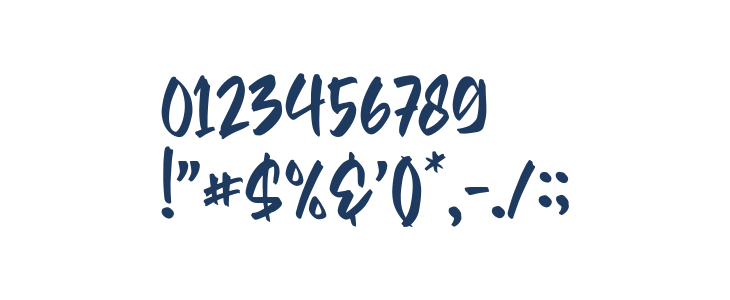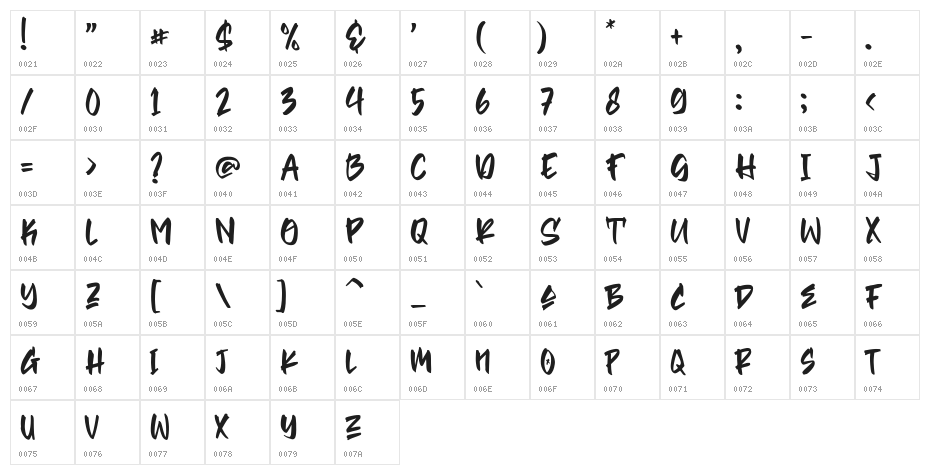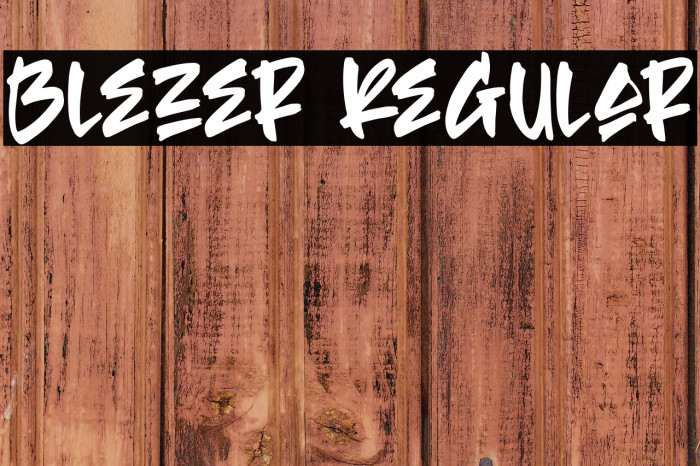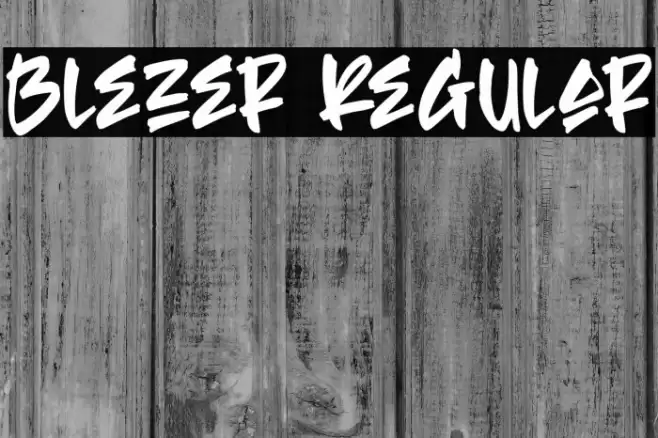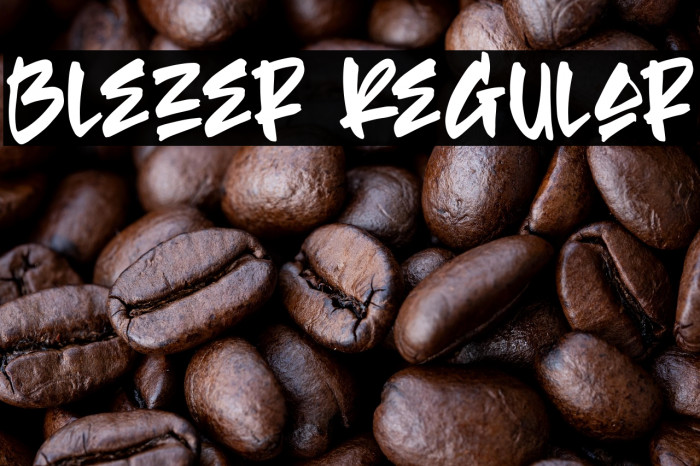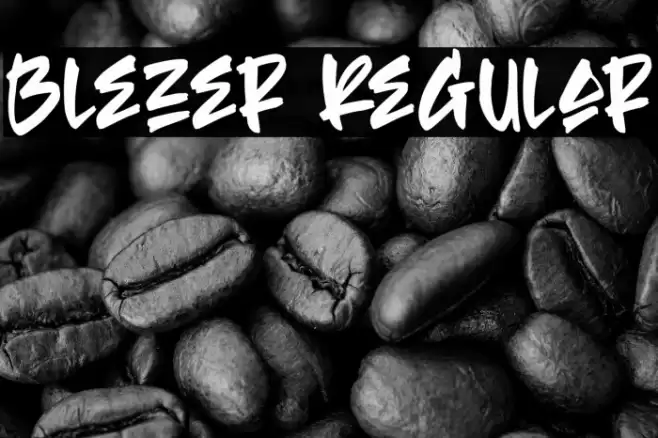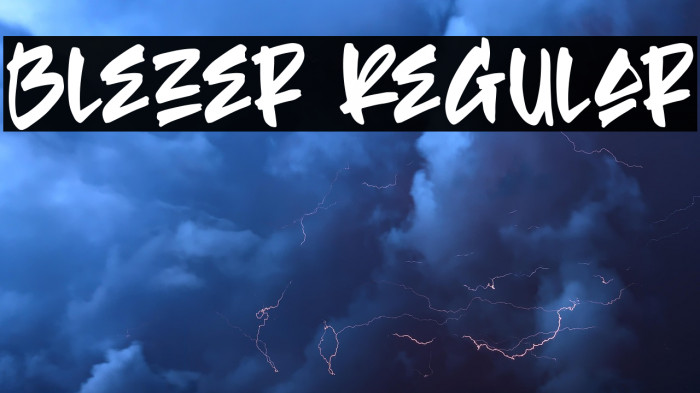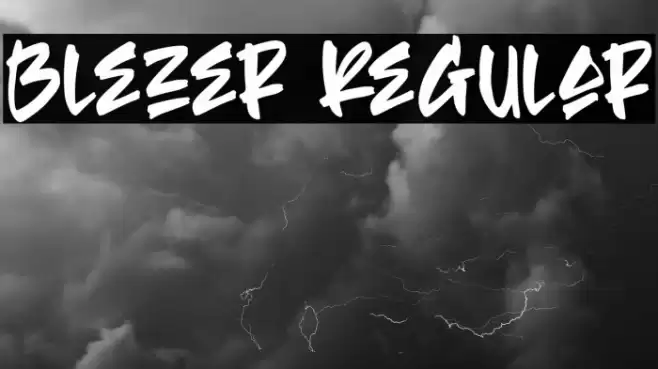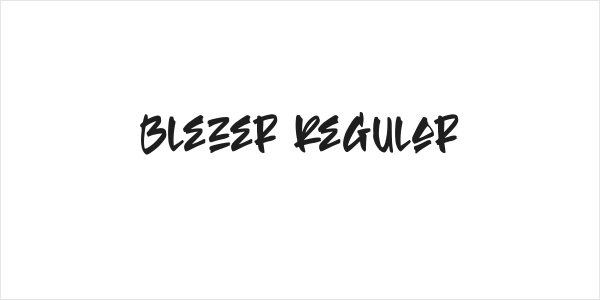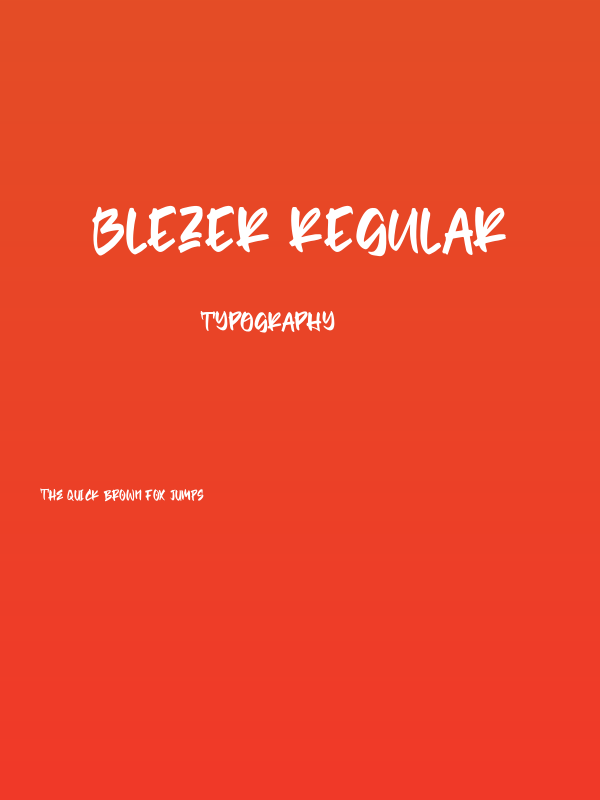
Blezer Regular Font
Blezer Regular Description
This font exhibits a bold and dynamic handwritten style, characterized by its thick strokes and energetic flow. The letters are slightly slanted, giving a sense of movement and spontaneity. Each character is distinct, with unique curves and angles that add to the overall expressive nature of the typeface. The uppercase and lowercase letters maintain a consistent style, while the numbers and special characters integrate seamlessly, enhancing the font's versatility. The boldness of the strokes ensures high visibility, making it suitable for impactful designs.
| Proposed Projects | Ideal for branding, posters, social media graphics, and any project requiring a bold, expressive touch. |